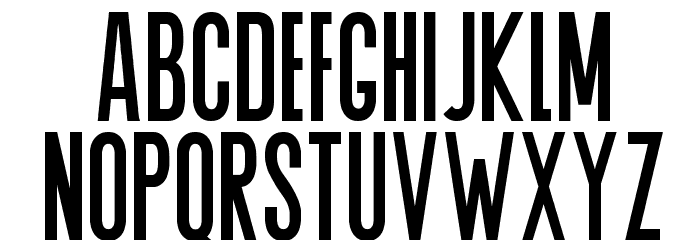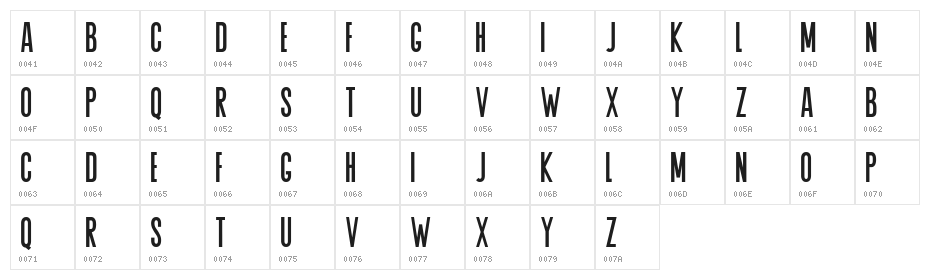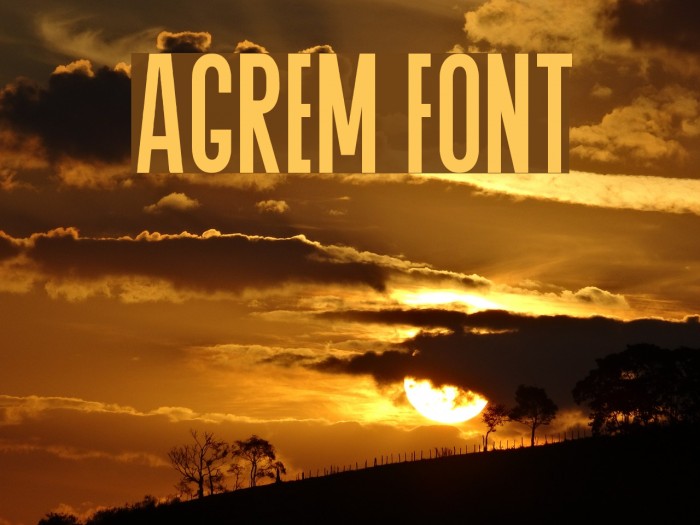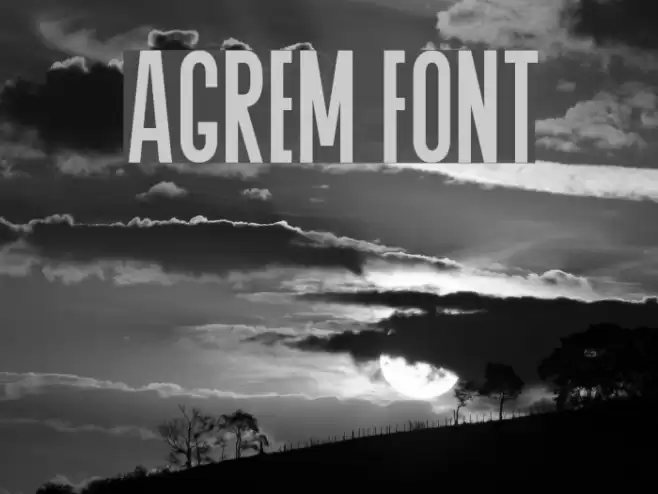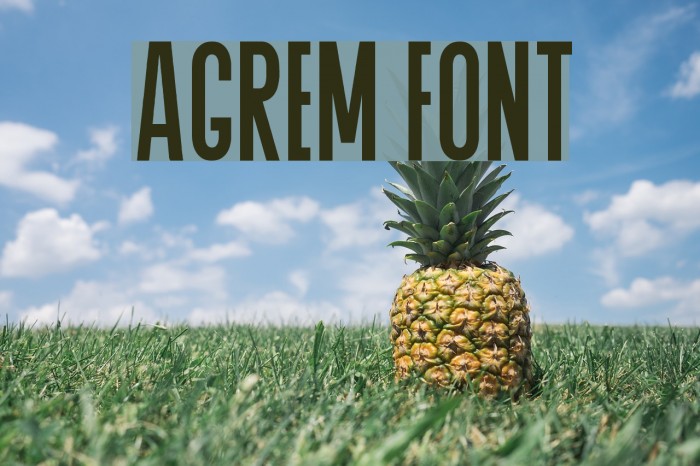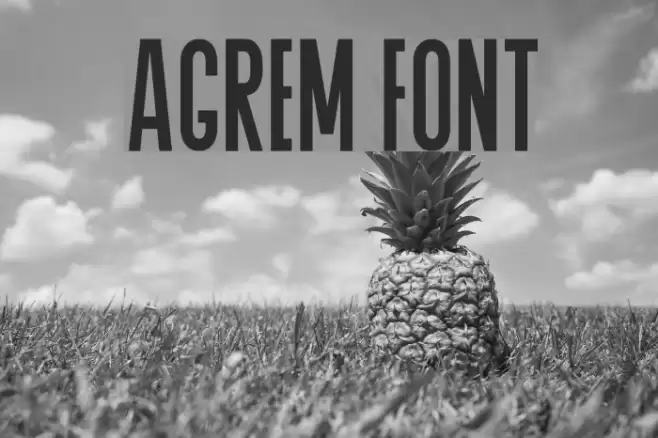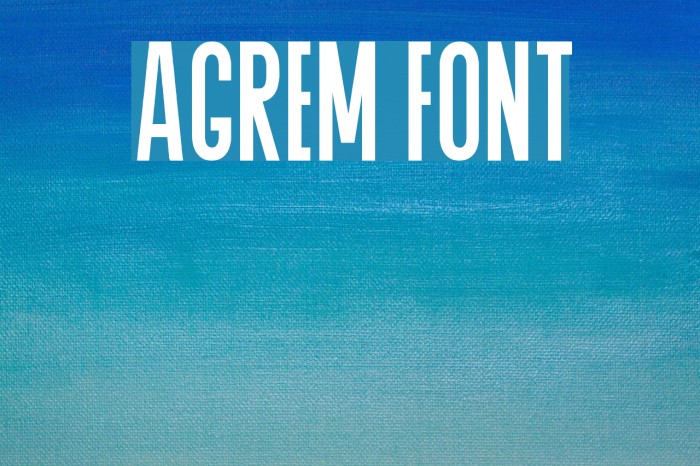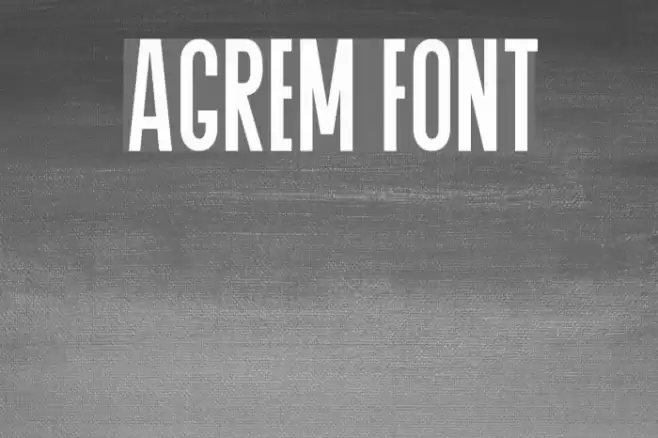
Agrem Font
Agrem Description
This font features tall, narrow letters with a strong vertical emphasis, creating a bold and impactful appearance. The characters are uniformly designed with consistent stroke widths, giving it a clean and modern look. The uppercase letters are particularly striking, with their elongated forms and tight spacing, which enhances the font's compact and powerful aesthetic. The overall style is minimalistic yet assertive, making it suitable for attention-grabbing headlines and titles. The font's design is straightforward, with no additional embellishments, emphasizing clarity and readability.
| Proposed Projects | Ideal for use in posters, headlines, branding materials, and any project requiring a strong visual impact. |